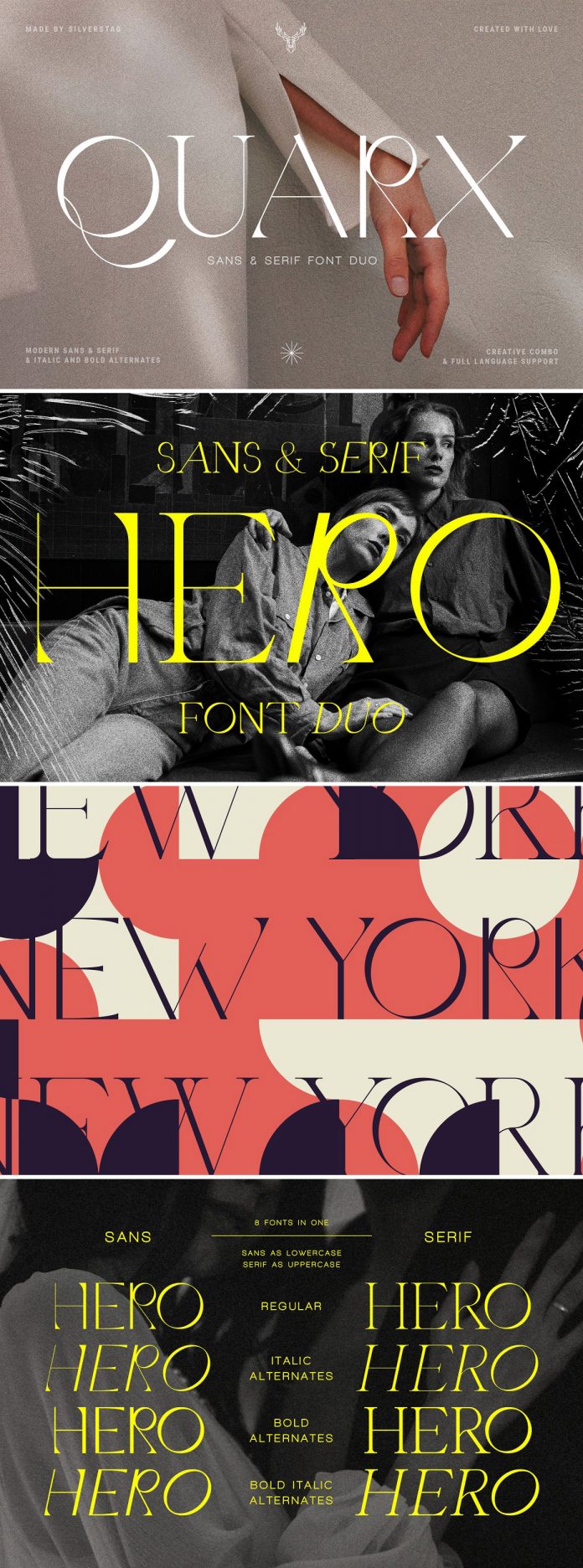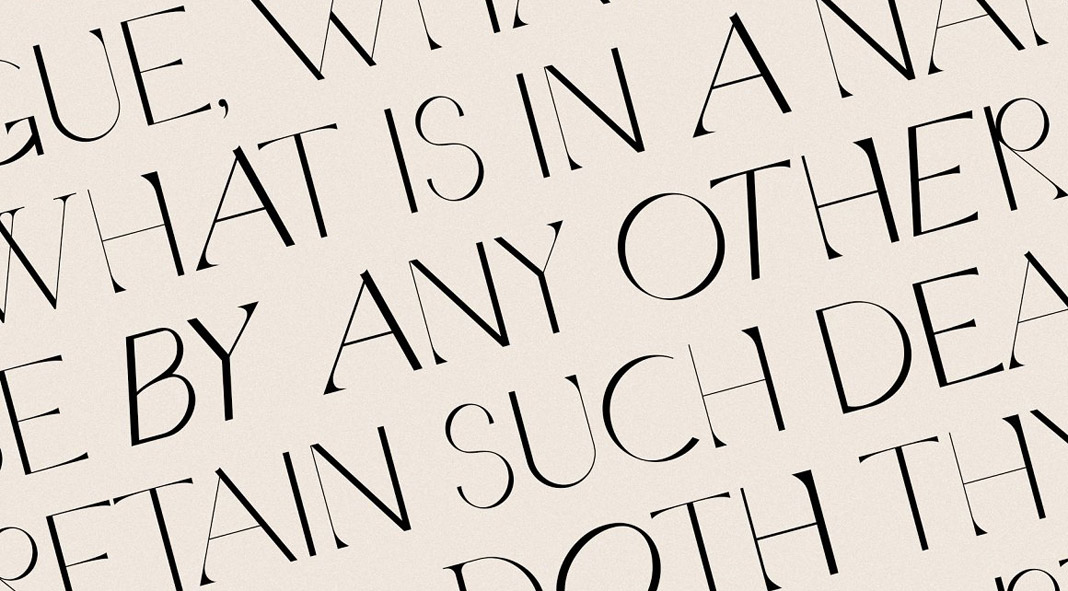
Discover Quarx, a unique font duo consisting of a sans and a serif typeface.
Created by SilverStag, Quarx is a new sans and serif font duo that comes with regular, italic, bold, and bold italic options. The Quarx font duo offers a unique look that combines classic typography with modern trends. It supports multiple languages and comes with punctuation, numerals, and detailed instructions on how to use alternate letters, which are supported by professional tools such as known from Adobe’s Creative Cloud or even Canva.
Just check out SilverStag’s preview images to see what you can do with this unique font duo. We would recommend using Quarx for headlines, titles, or even small text sections. For further information, just click on one of the following links.